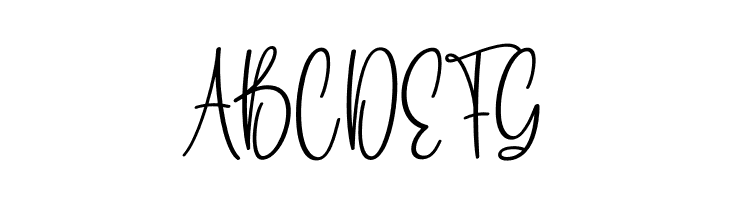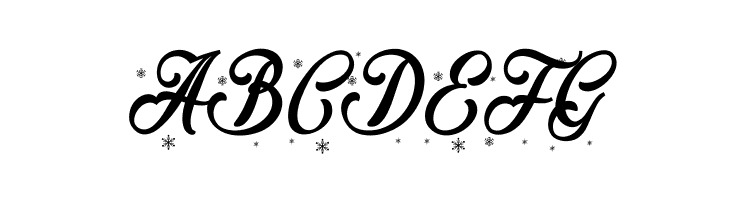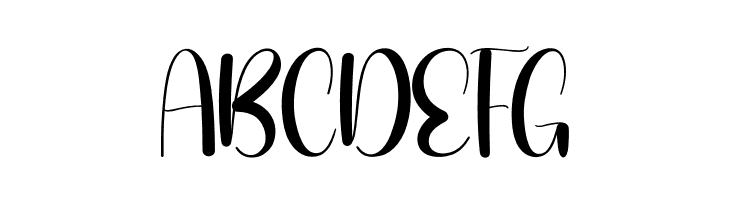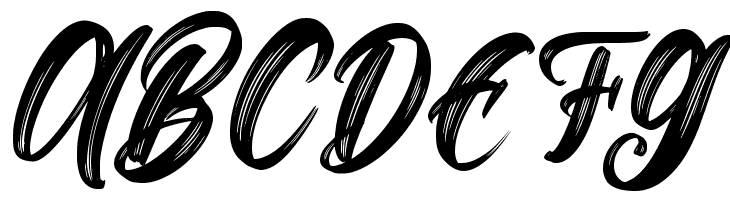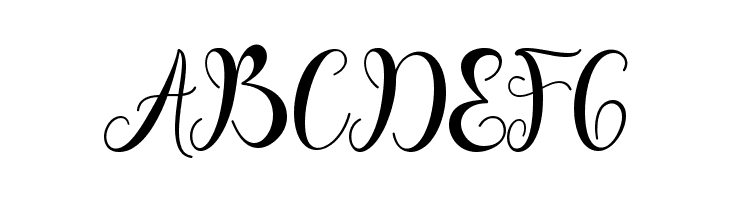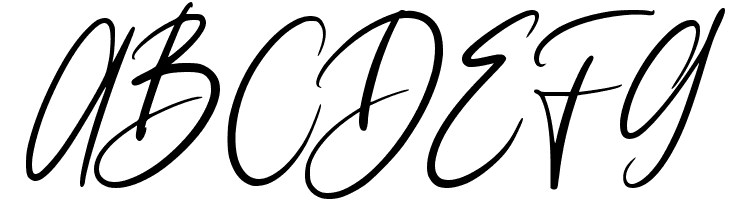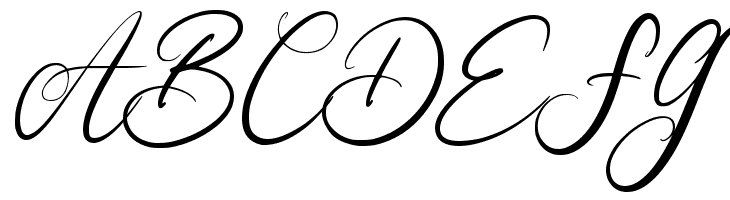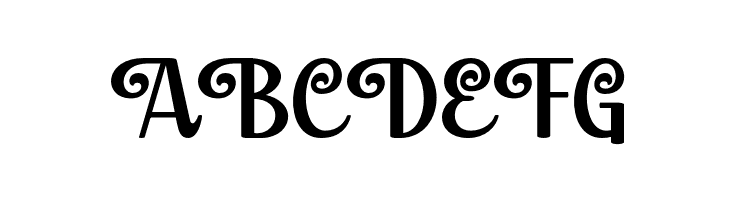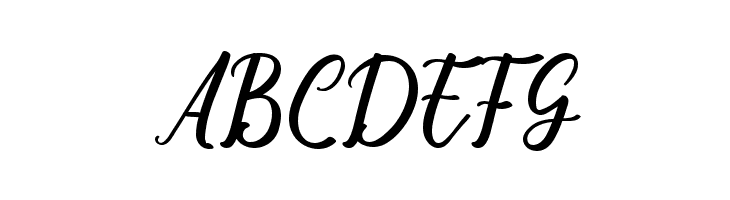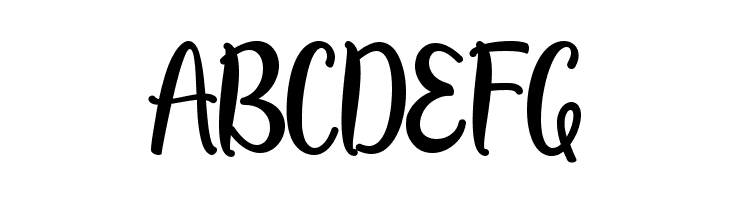
• Beach Christmas
Tall, whimsical handwritten script with playful, loose strokes.
• Merry Christmas Color Regular
A decorative Christmas-themed script font with snowflake embellishments.
• Defense Christmas
Playful handwritten script with festive, whimsical strokes.
• Christmas Math
Bold, brush-style script font with energetic, festive strokes.
• Christmas Amellia
Highly decorative script with ornate swashes and high contrast.
• Winter Christmas Monogram
Decorative script font with festive, swirling monogram style.
• Christmas Yesterday
Expressive handwritten script with tall, narrow, and connected letters.
• Christmas Quessa
A decorative, modern script with a handwritten, calligraphic style.
• Christmas Maddison Regular
A bold, decorative script font with festive swashes and rounded forms.
• Christmas Serenity
Elegant, handwritten script with smooth, connected strokes.
• Christmas Friday
Casual, brush-style script with playful, rounded forms.
• Christmas Donuts Demo
Playful, rounded handwritten font with bold, smooth strokes.
• Arivo Christmas DEMO
Festive sans-serif font with snowflake decorations for holiday themes.
• Handmade Christmas
A whimsical, handwritten script font with playful loops and a festive feel.
• Christmas Shadyna Monogram Demo
Ornate script font with extensive flourishes and a festive appearance.
• Christmas Shadyna Demo
Whimsical, decorative script with festive swashes and heart accents.
• Royal Christmas Monogram
Decorative serif font with festive, high-contrast strokes and ornamental details.
• Christmas Smile - Personal Use
Playful, decorative script with swirling, festive strokes.
• Holiday Christmas
Playful handwritten script with tall loops and thin strokes.
• Christmas Betterlove
A festive, decorative script font with holiday-themed flourishes.
• Samantha Christmas Demo
Ornate, festive script with elaborate swashes and bold lowercase forms.